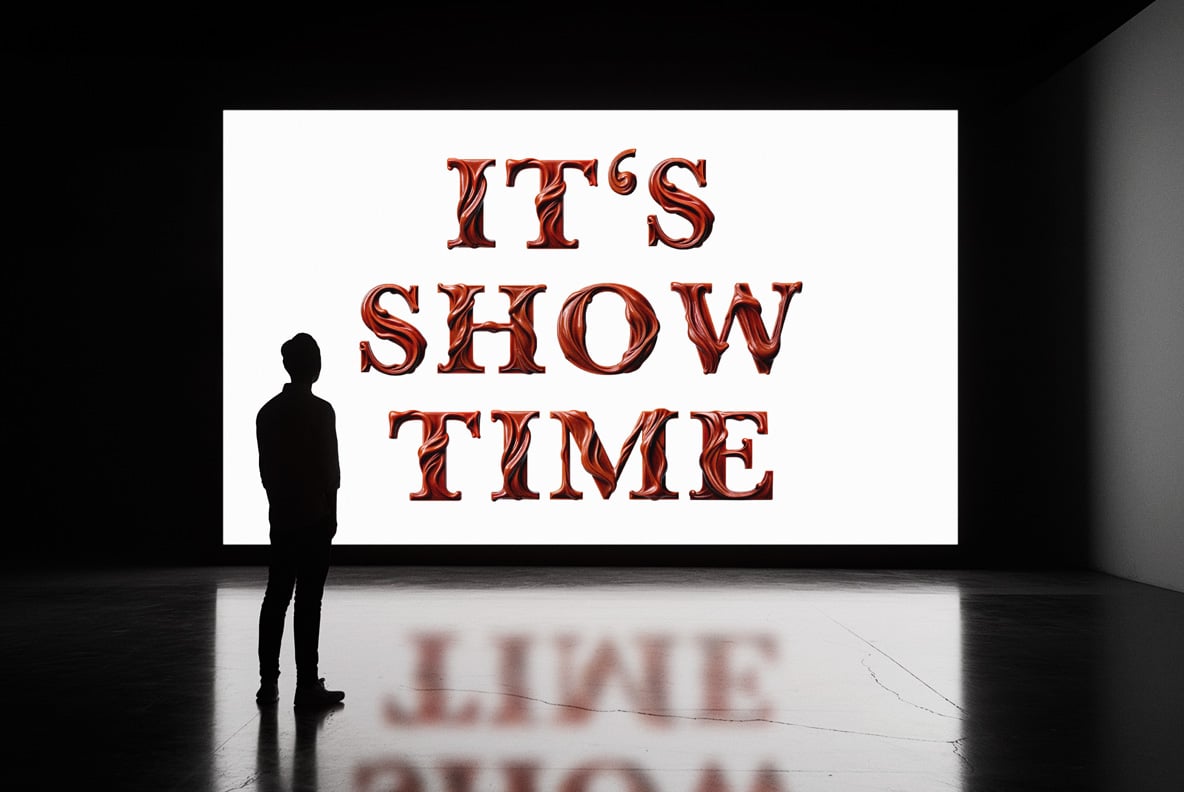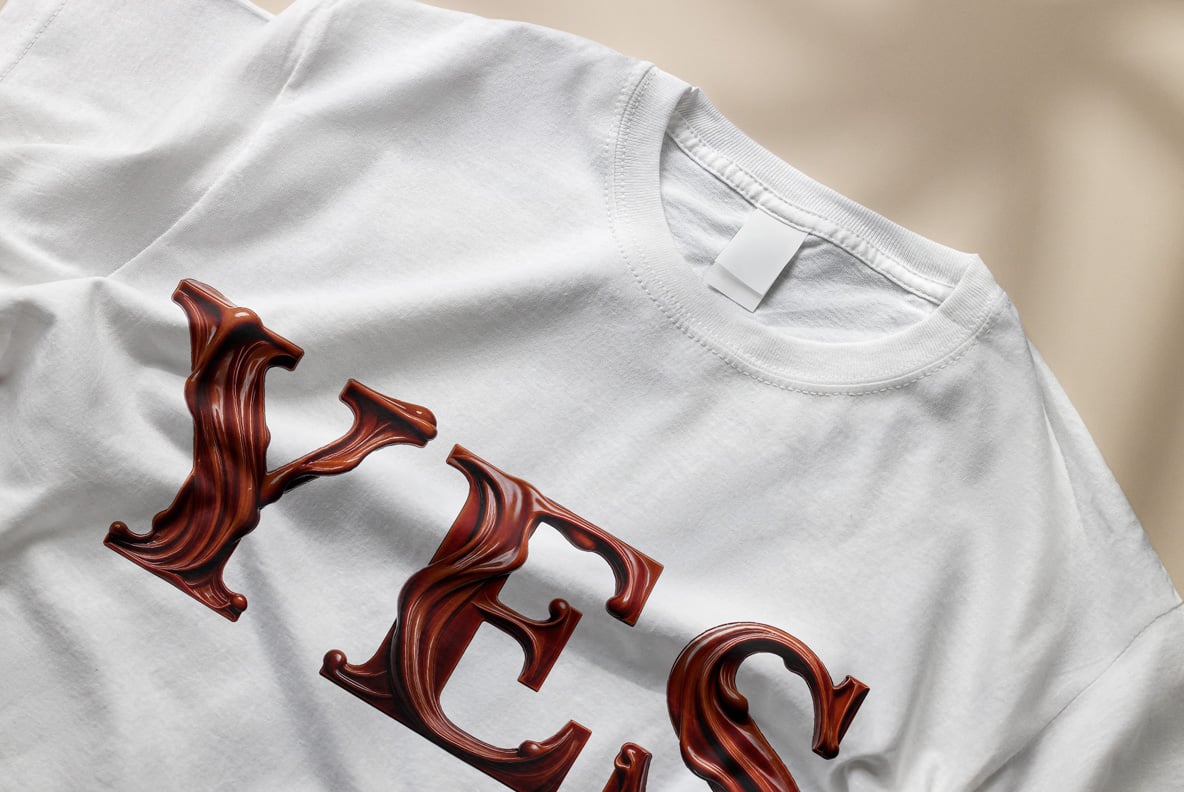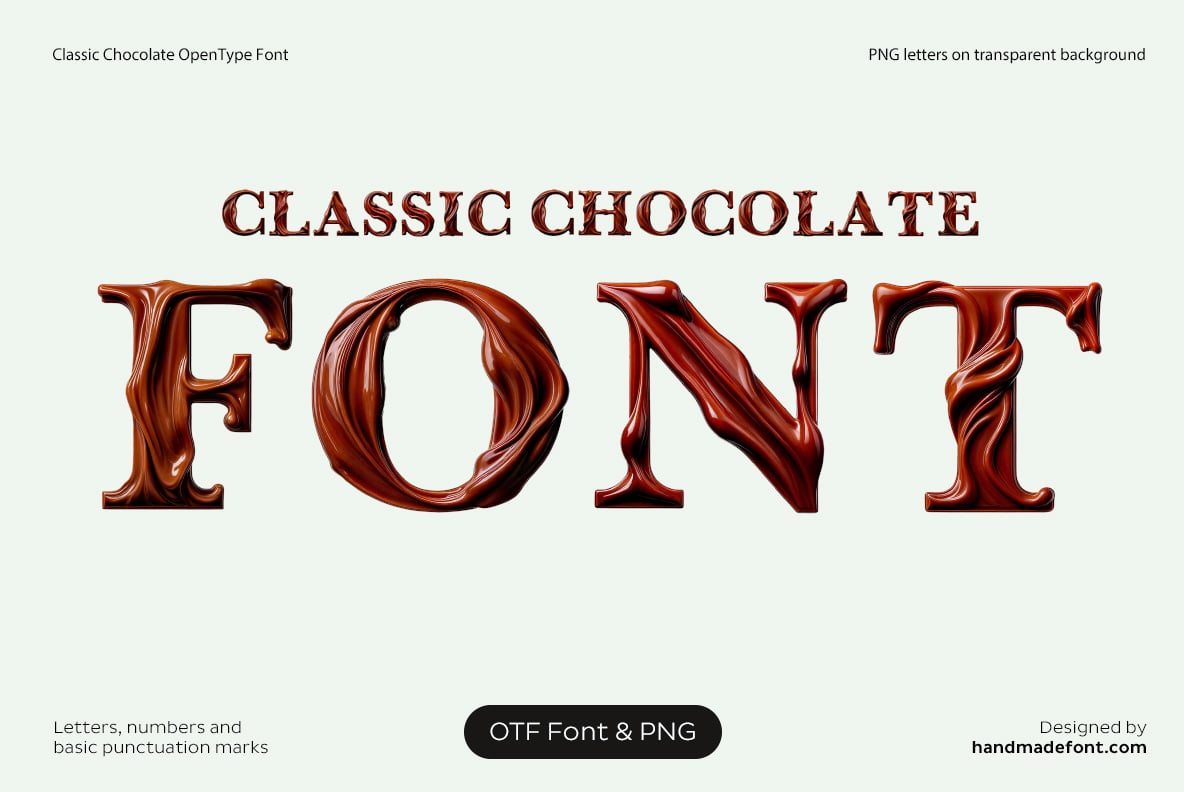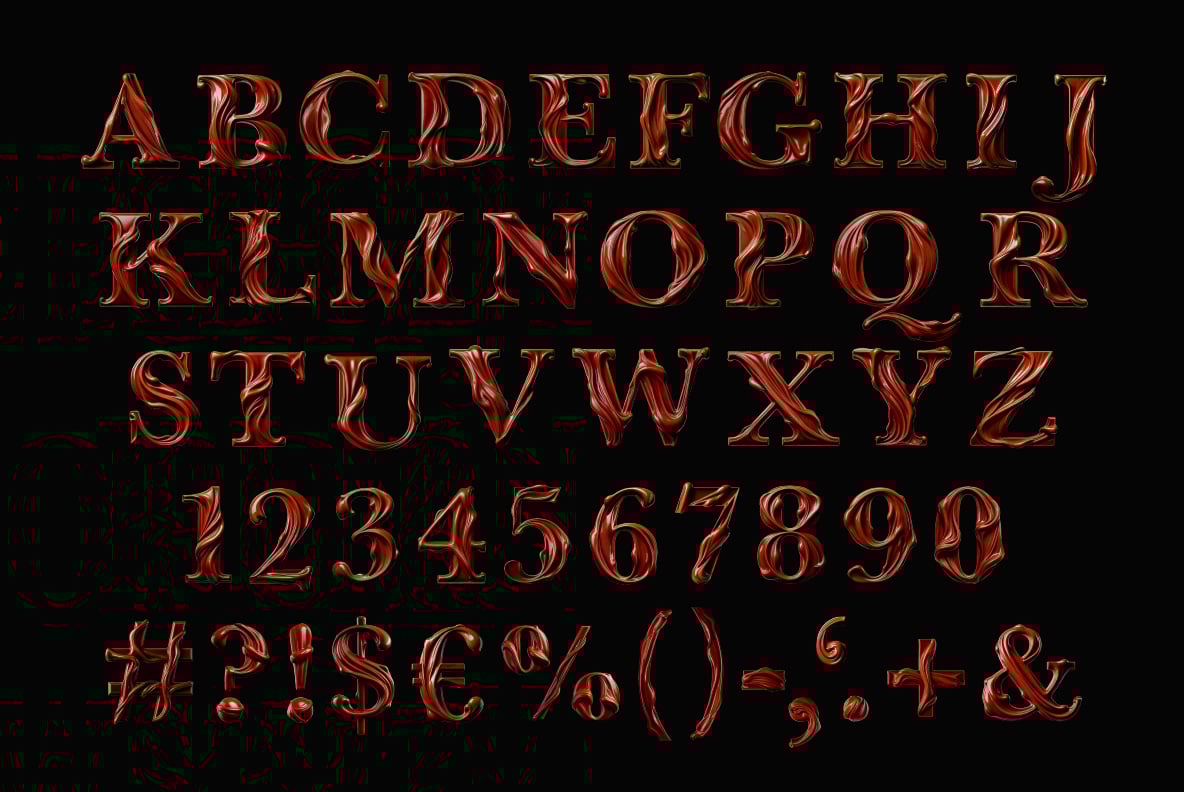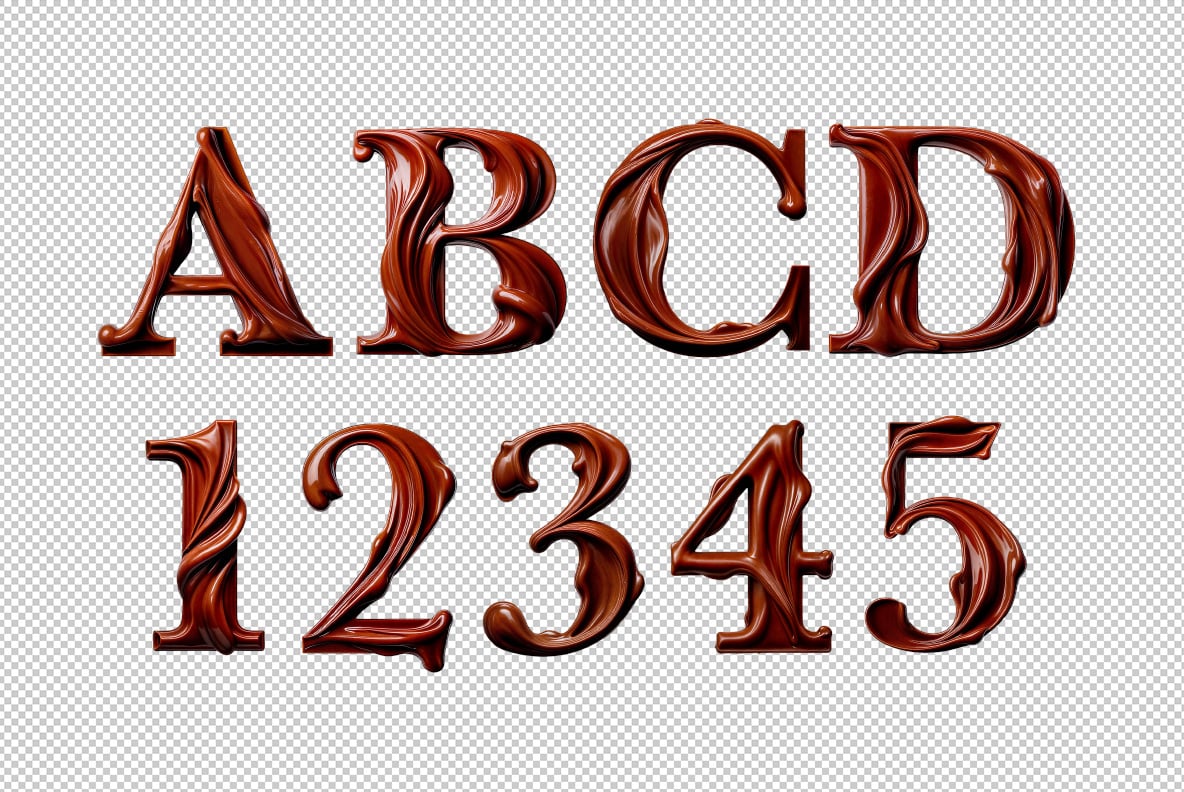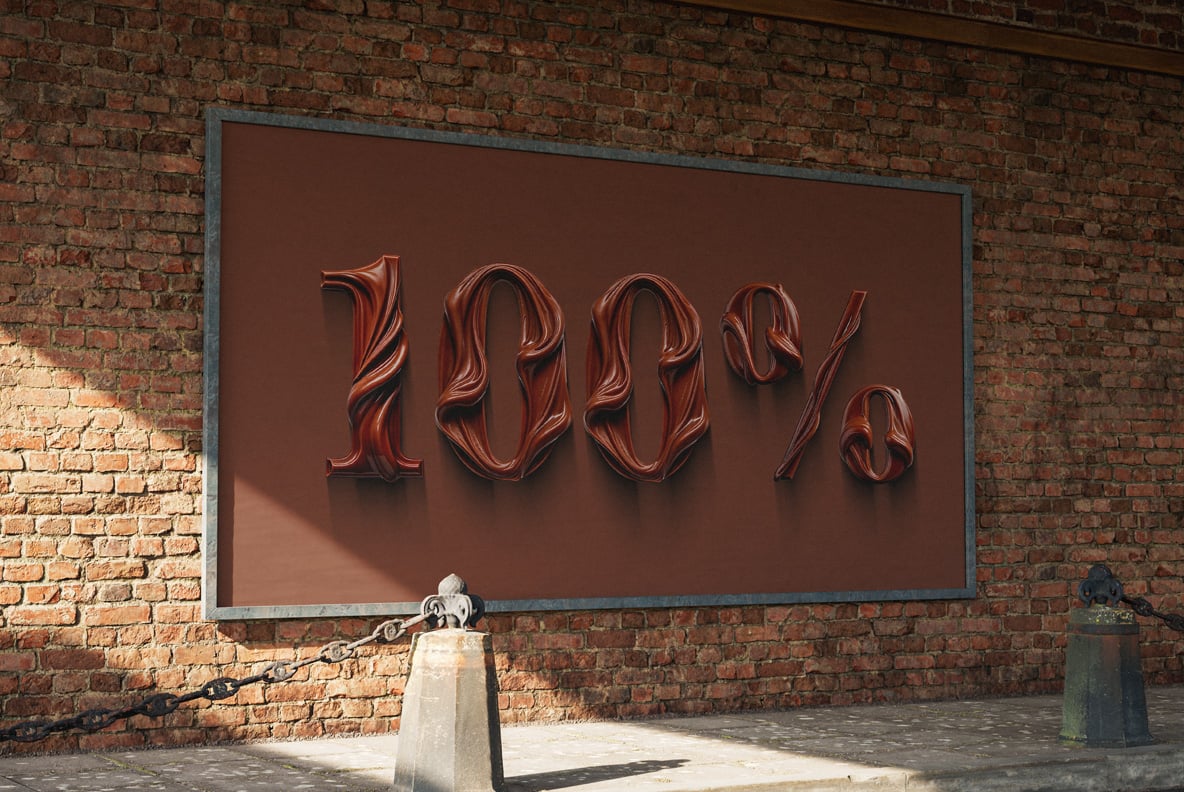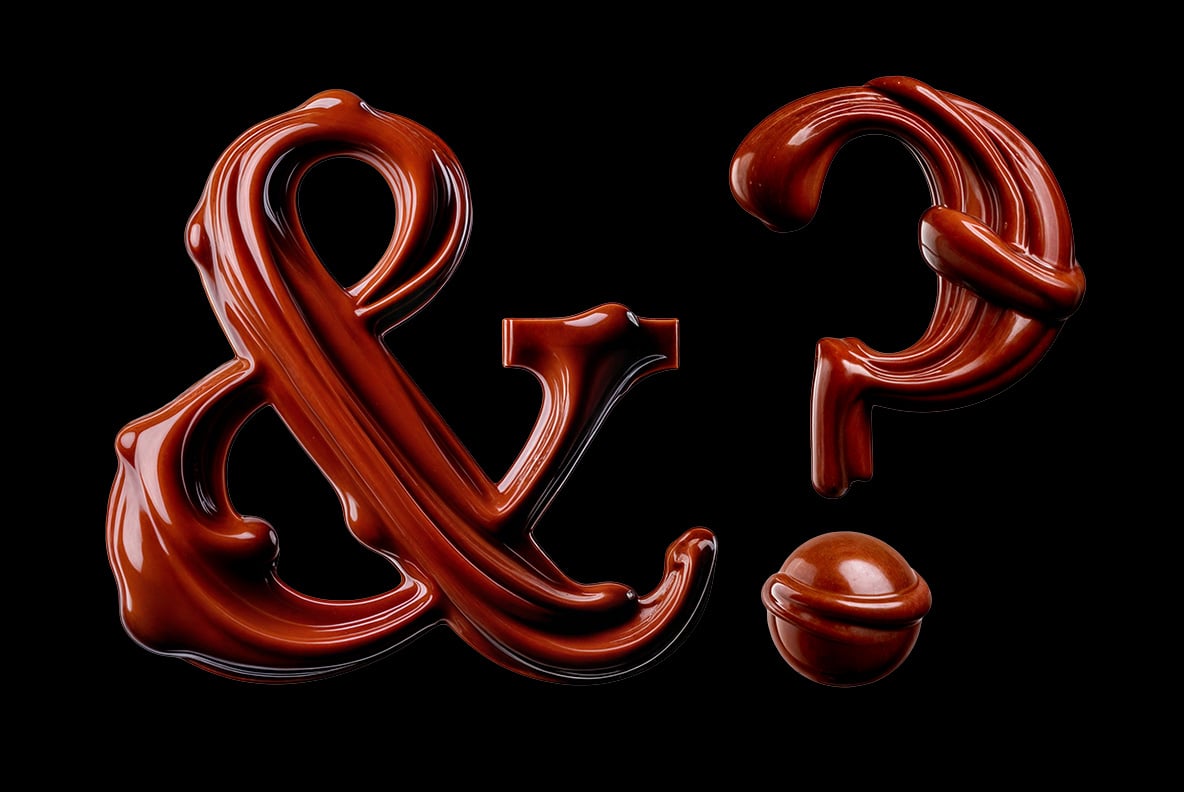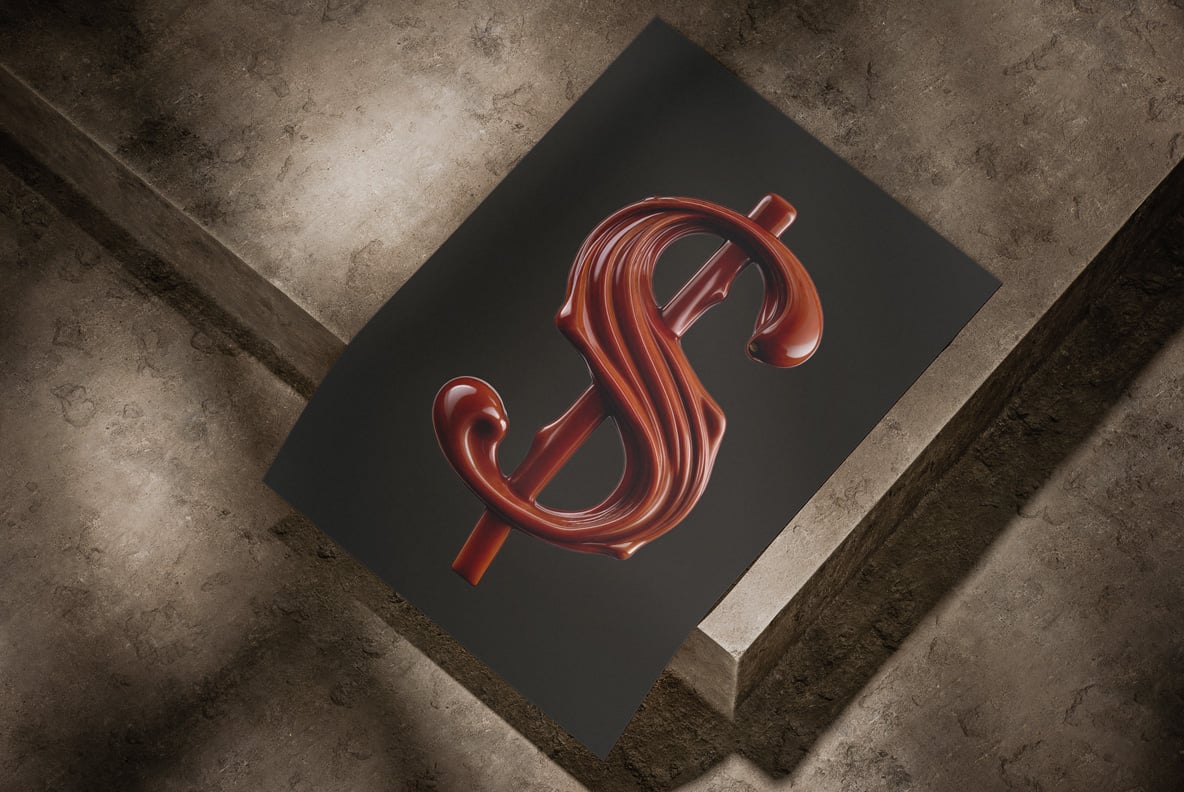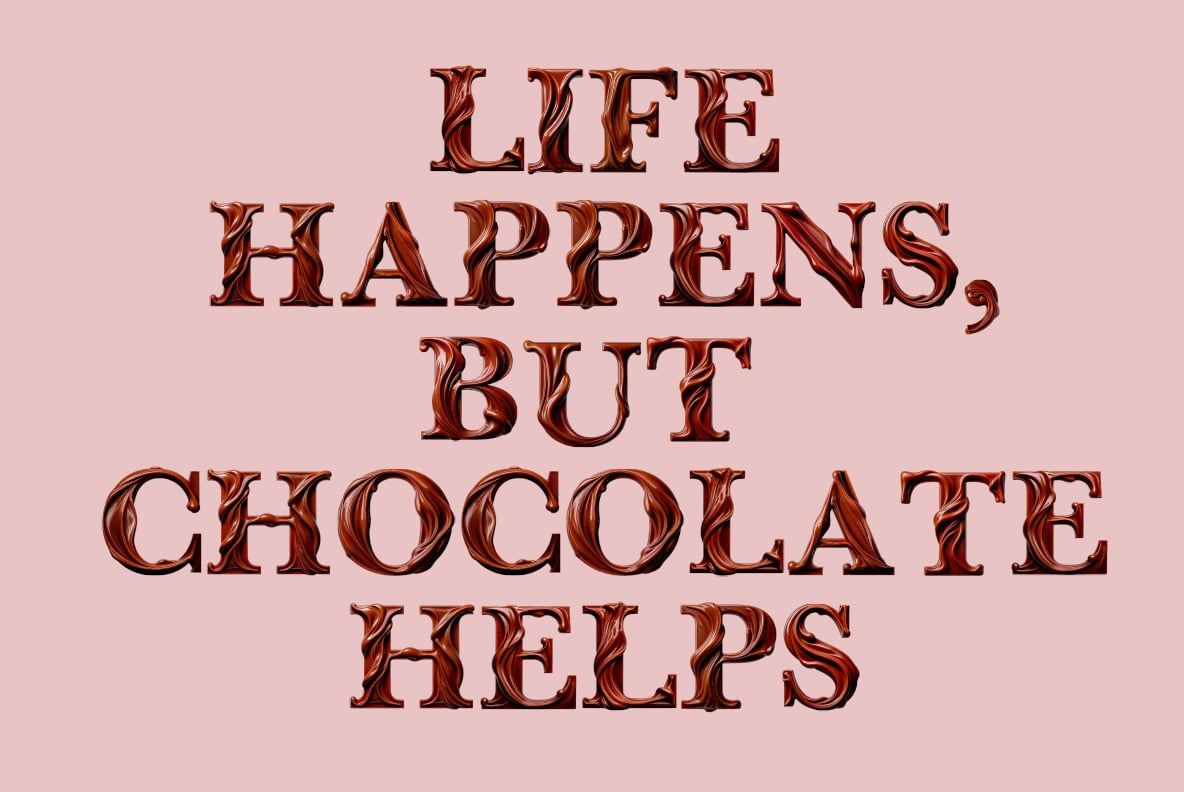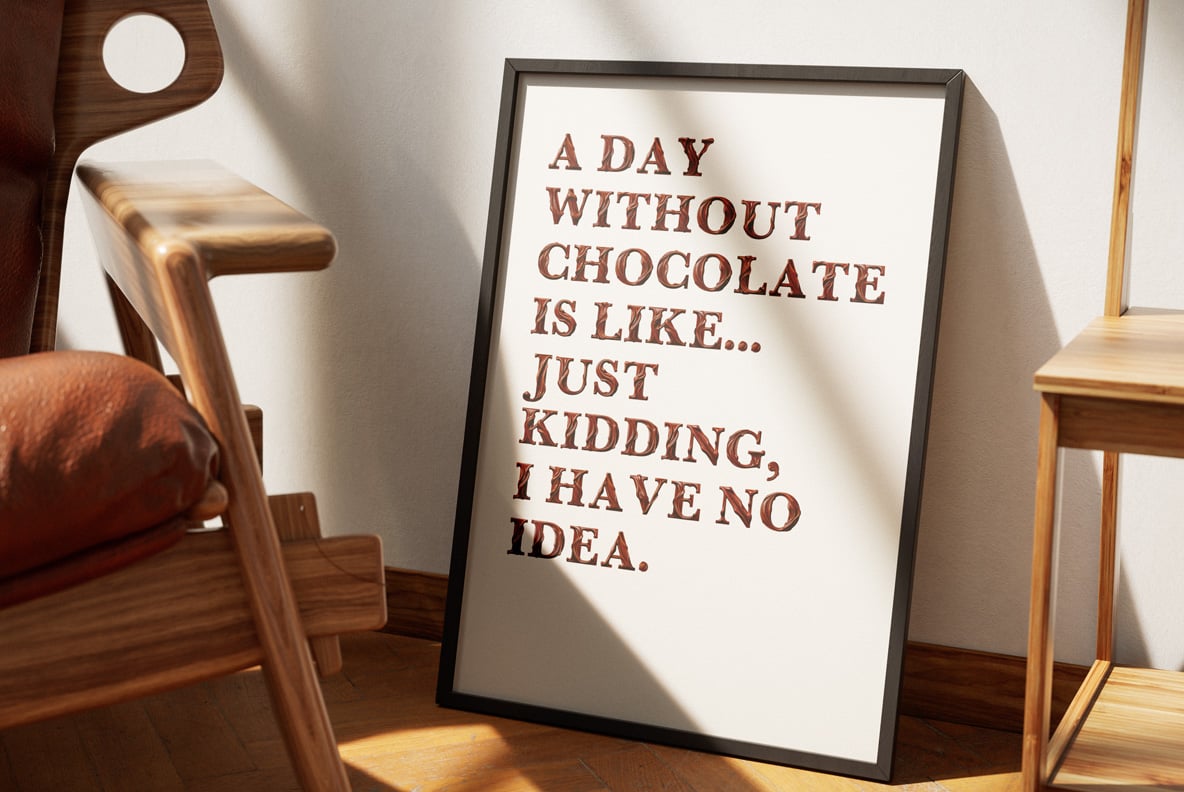
Classic Chocolate Font
Sweet and irresistible, the Classic Chocolate Font is a delicious treat for the eyes. Each letter is meticulously crafted from smooth, glossy chocolate, embodying the richness of melted cocoa. The chocolate typography flows luxuriously, with artistic drips and splatters adding a playful yet elegant touch. This chocolate-inspired font brings a creamy, indulgent texture to life, making it perfect for designs that crave sophistication with a dash of whimsy. Whether you're crafting delectable packaging, mouthwatering ads, or inviting invitations, this chocolate alphabet oozes charm and creativity. Its glossy finish and artisanal style evoke a sense of luxury, ensuring your message stands out with sweet sophistication. Perfectly balanced between elegance and appetite, this chocolate lettering is truly irresistible.